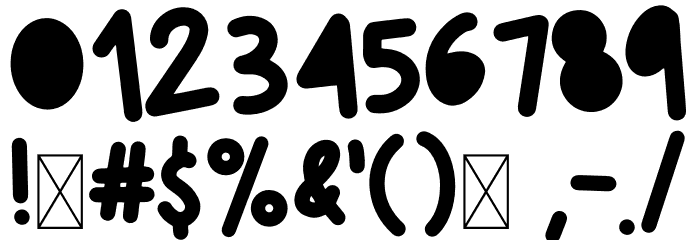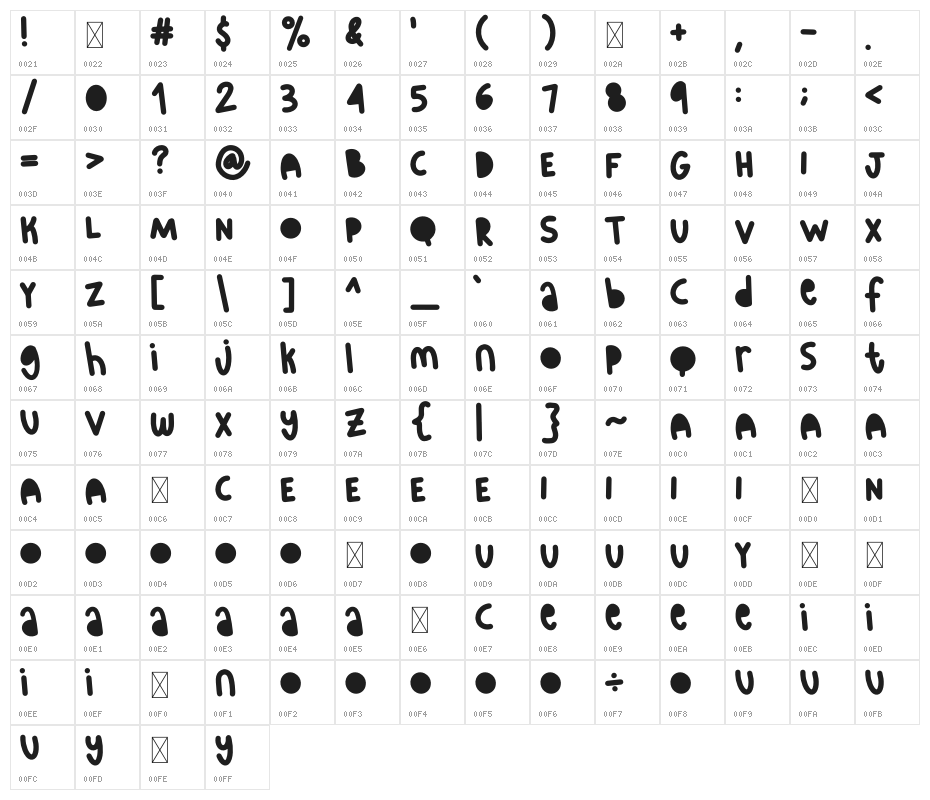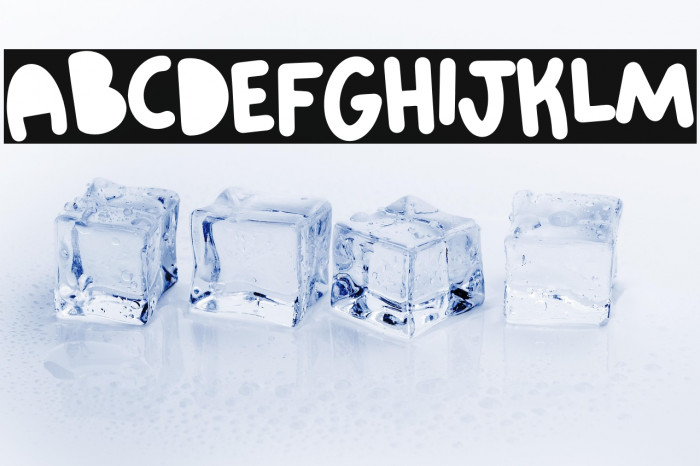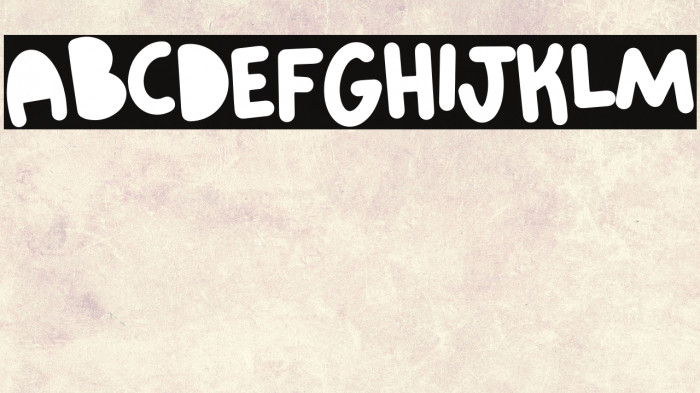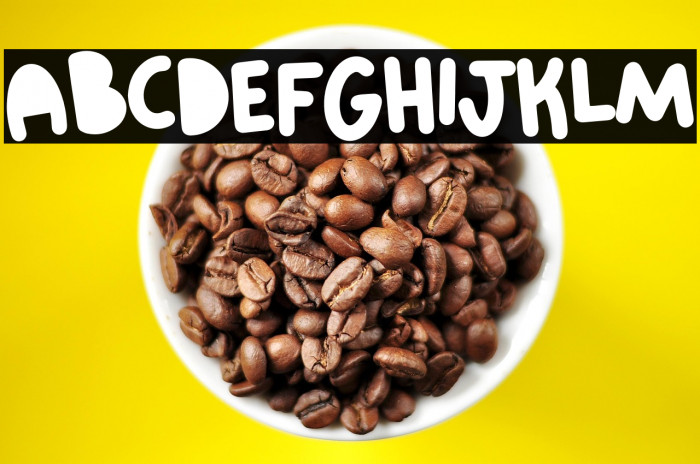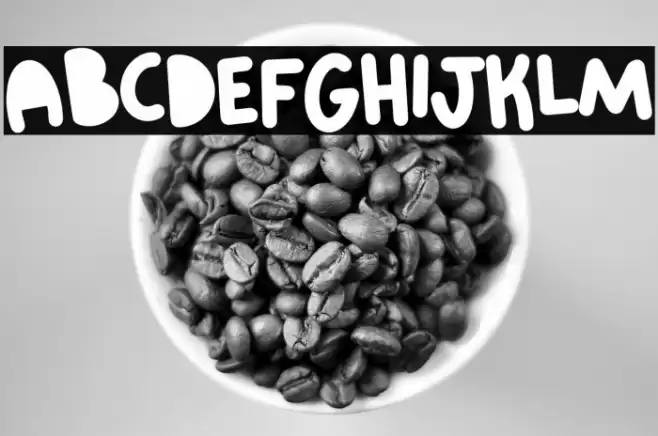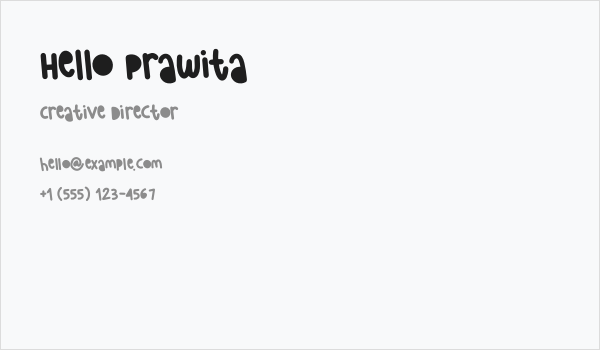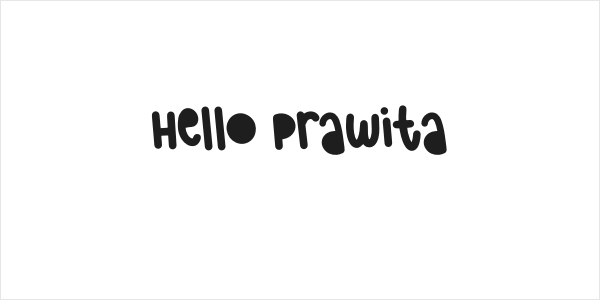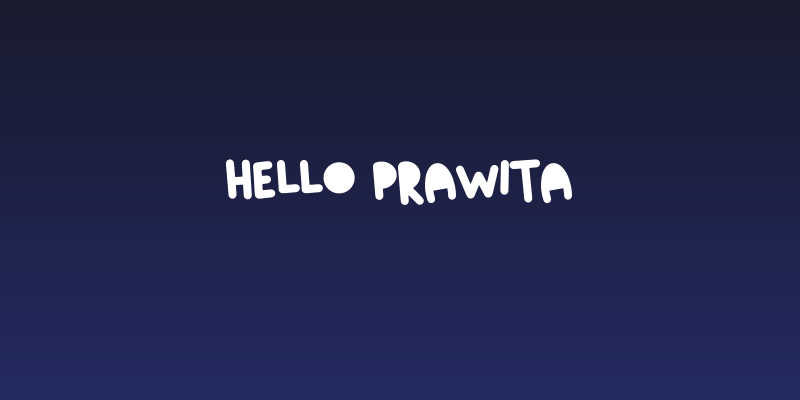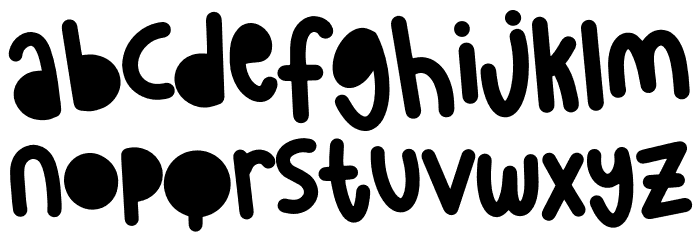
Hello Prawita Font
Hello Prawita Description
This playful and bold font features rounded, thick strokes that give it a friendly and approachable appearance. The characters are slightly irregular, adding a whimsical touch to the overall design. The uppercase and lowercase letters maintain a consistent style, with smooth curves and a slightly condensed form. Numbers and special characters follow the same playful aesthetic, making them easily recognizable and cohesive with the rest of the font. The font's unique style makes it suitable for projects that require a fun and informal tone.
| Proposed Projects | Ideal for children's books, playful branding, party invitations, and casual social media graphics. |